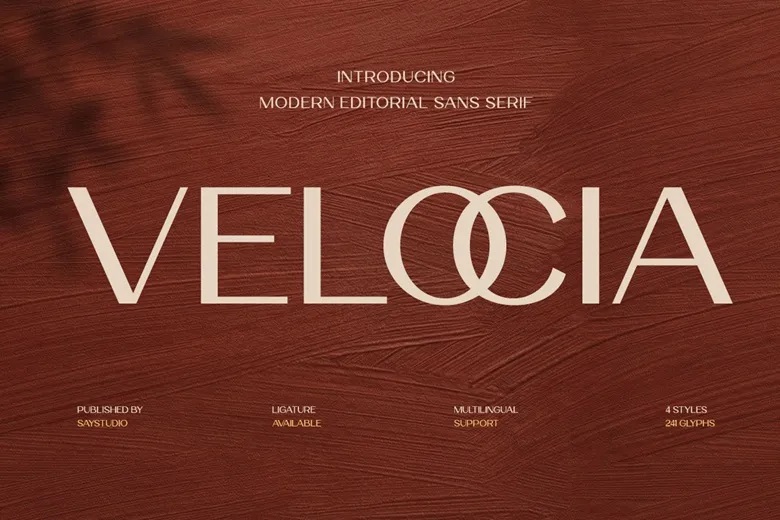
Velocia Font
Velocia is a modern sans-serif font with an elegant, simple look. It was made for editorial use and stands out in fashion magazines, branding, luxury packaging, and digital campaigns.
Velocia’s balanced proportions and smooth curves give it a polished look that works well for headlines, logos, and modern layouts. It adds a high-quality feel to both print and digital projects.
Velocia Sans Serif Font